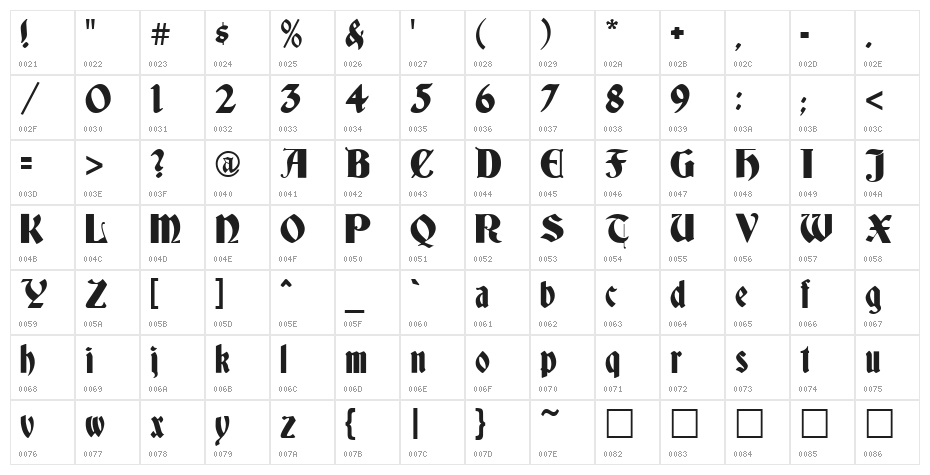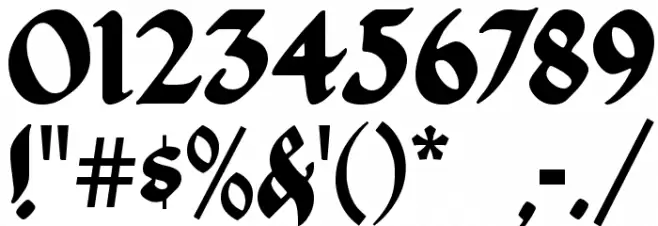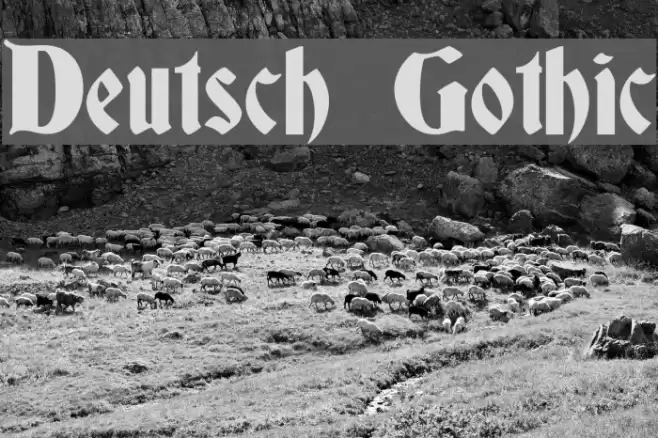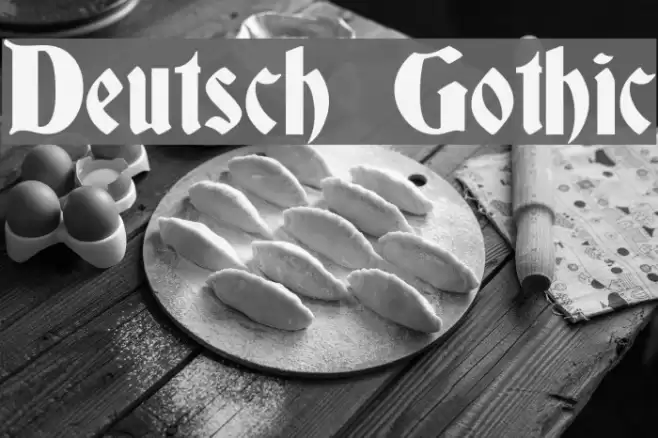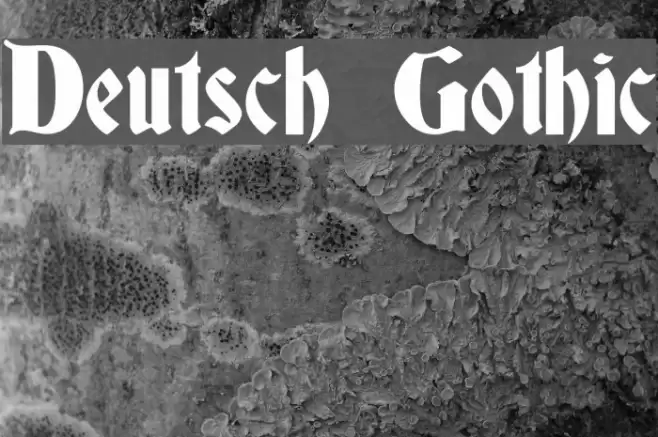
Deutsch Gothic Font
Deutsch Gothic Description
This font embodies the traditional Gothic style with its intricate and ornate letterforms. Each character is crafted with sharp, angular lines and dramatic curves, reflecting the historical essence of medieval script. The uppercase letters are bold and commanding, while the lowercase letters maintain a consistent flow with distinctive flourishes. The numerals are equally stylized, offering a cohesive look across all characters. This font is perfect for projects that require a touch of historical or classical elegance, such as invitations, certificates, or themed branding. Its unique style makes it stand out, providing a sense of grandeur and sophistication.
| Overall Style | Vintage |
| Proposed Projects | Ideal for historical-themed designs, invitations, certificates, and branding that requires a classical touch. |